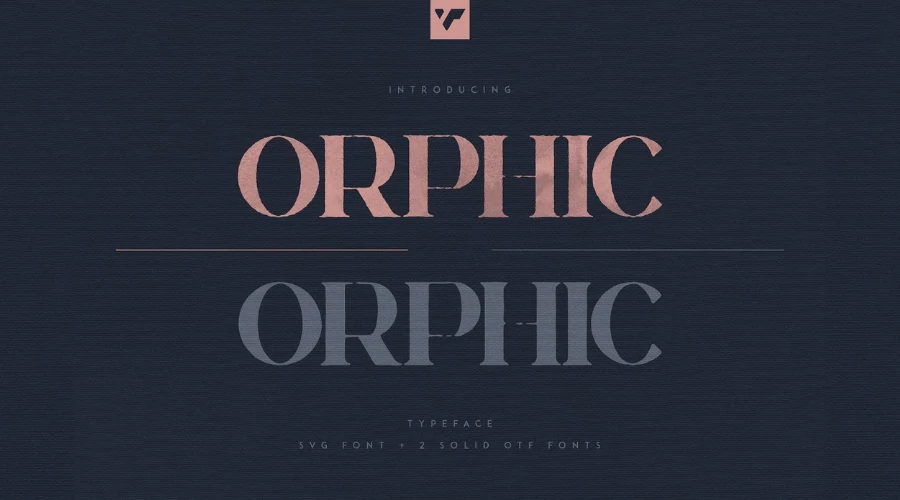
Introducing Orphic font, a serif Typeface with – Bitmap svg + 2 solid fonts. Orphic is great for branding initiatives, home-ware designs, product packaging, magazine headlines – or just as a stunning text overlay to any backdrop image.
Orphic typeface is contemporary and classy. It may be utilized in packaging, branding, clothes, as well as quotations. You may include it on your website or in animations that feature the usage of titling.
Some designers have begun utilizing this typeface in their portfolio presentations, art, as well as and instructional videos.